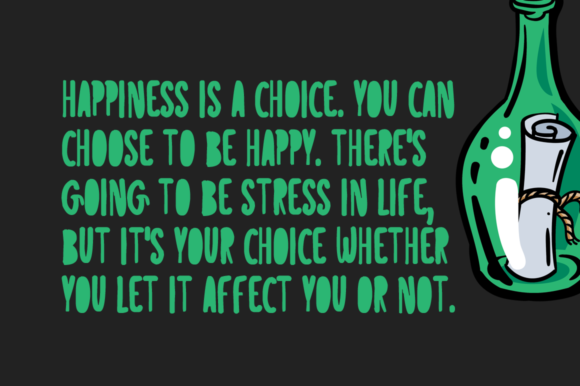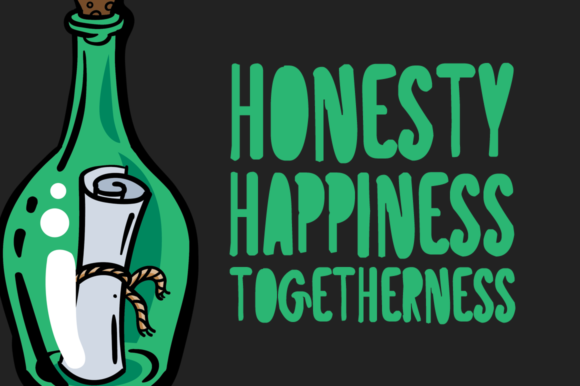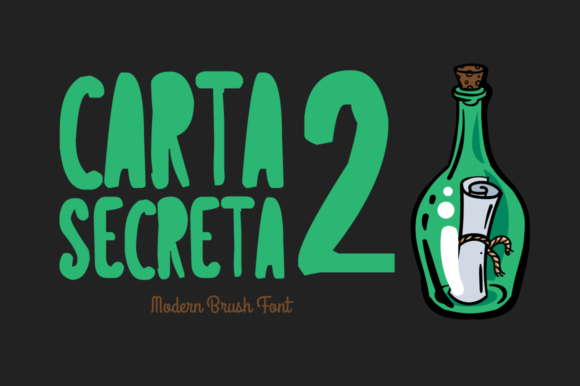
Carta Secreta 2 Font: The Ultimate Display Font for Your Design Projects
Carta Secreta 2 is a fun and playful display font with an incredible feel. Get inspired by its bold charm, and turn any design project into an eye catcher! In this article, we’ll dive into the world of Carta Secreta 2, exploring its features, benefits, and uses. Whether you’re a designer, crafter, or simply a font enthusiast, you’ll love what this font has to offer.
What is Carta Secreta 2 Font?
Carta Secreta 2 is a display font designed to make a statement. Its bold, playful, and charming style is perfect for creating eye-catching designs that grab attention. The font is a follow-up to the original Carta Secreta, with even more personality and flair. With its unique feel and versatility, Carta Secreta 2 is ideal for a wide range of design projects, from posters and flyers to social media graphics and craft projects.
Key Features of Carta Secreta 2 Font
• Bold and Playful Style: Carta Secreta 2 has a bold, playful style that’s perfect for creating eye-catching designs.
• Unique Feel: The font has a unique feel that’s both fun and sophisticated.
• Versatile: Carta Secreta 2 is versatile and can be used for a wide range of design projects.
• Easy to Read: Despite its bold style, Carta Secreta 2 is easy to read, making it perfect for use in titles, headings, and other display text.
Benefits of Using Carta Secreta 2 Font
So, why should you use Carta Secreta 2 font in your design projects? Here are just a few benefits:
• Adds Personality to Your Designs: Carta Secreta 2 adds a touch of personality to your designs, making them stand out from the crowd.
• Perfect for Eye-Catching Designs: The font’s bold style makes it perfect for creating eye-catching designs that grab attention.
• Versatile: Carta Secreta 2 can be used for a wide range of design projects, from posters and flyers to social media graphics and craft projects.
Uses of Carta Secreta 2 Font
Carta Secreta 2 is a versatile font that can be used for a wide range of design projects, including:
• Posters and Flyers: Use Carta Secreta 2 to create eye-catching posters and flyers that grab attention.
• Social Media Graphics: The font is perfect for creating social media graphics that stand out from the crowd.
• Craft Projects: Carta Secreta 2 can be used for a wide range of craft projects, from scrapbooking to DIY signs.
• Logos and Branding: The font’s bold style makes it perfect for use in logos and branding materials.
Tips for Using Carta Secreta 2 Font
Here are a few tips for using Carta Secreta 2 font in your design projects:
• Use it as a Display Font: Carta Secreta 2 is designed to be used as a display font, so use it for titles, headings, and other display text.
• Pair it with Other Fonts: The font pairs well with other fonts, so don’t be afraid to experiment with different combinations.
• Experiment with Colors: Carta Secreta 2 looks great in a variety of colors, so experiment with different colors to find the one that works best for your design.
Carta Secreta 2 is a fun and playful display font with an incredible feel. Its bold charm and versatility make it perfect for a wide range of design projects, from posters and flyers to social media graphics and craft projects. With its unique feel and ease of use, Carta Secreta 2 is a must-have font for any designer or crafter looking to add a touch of personality to their designs.